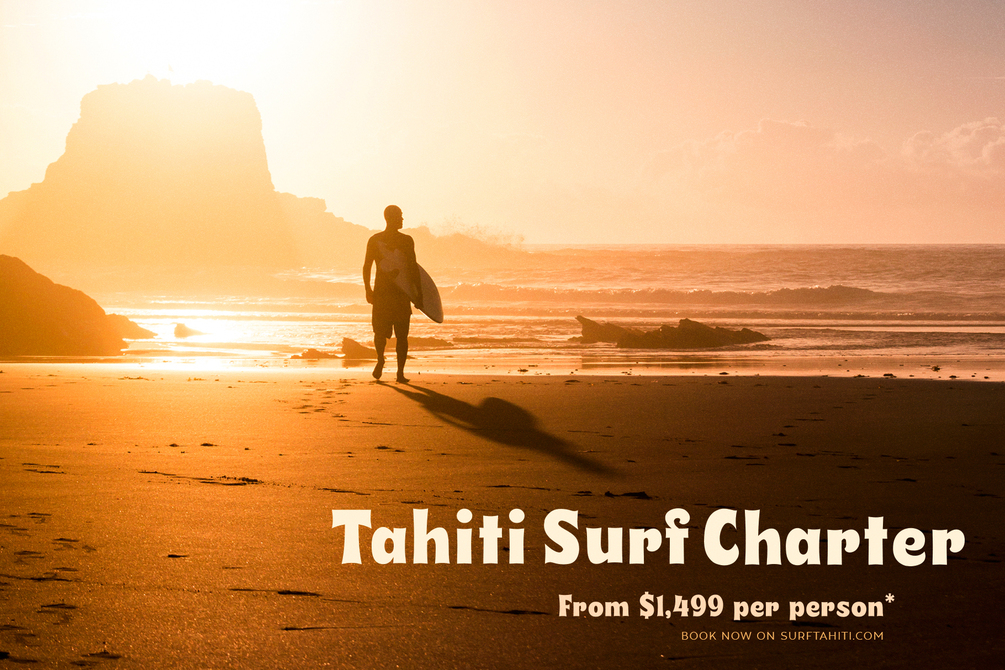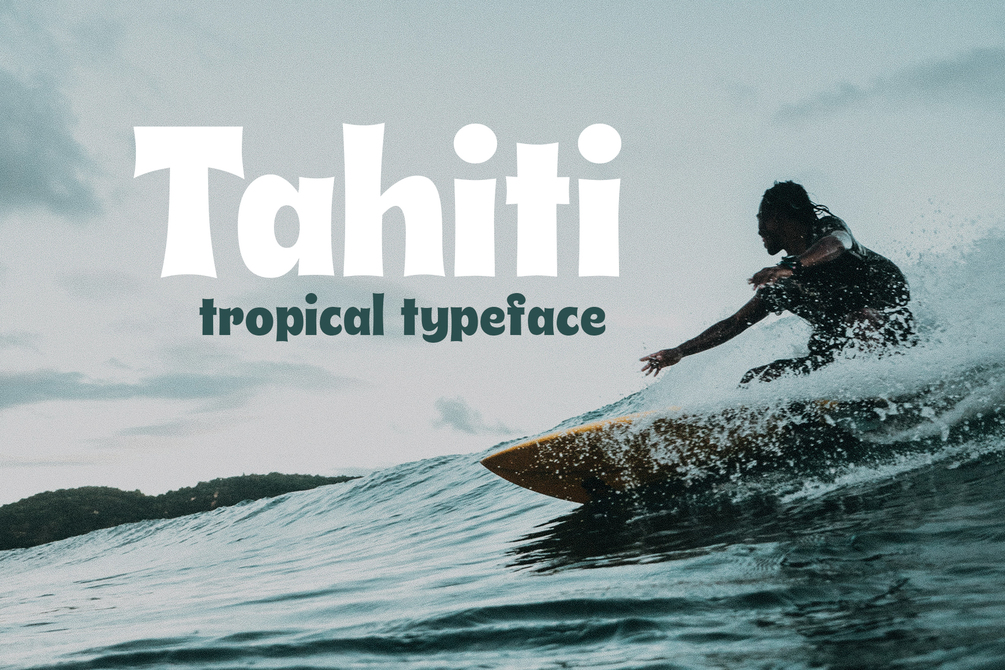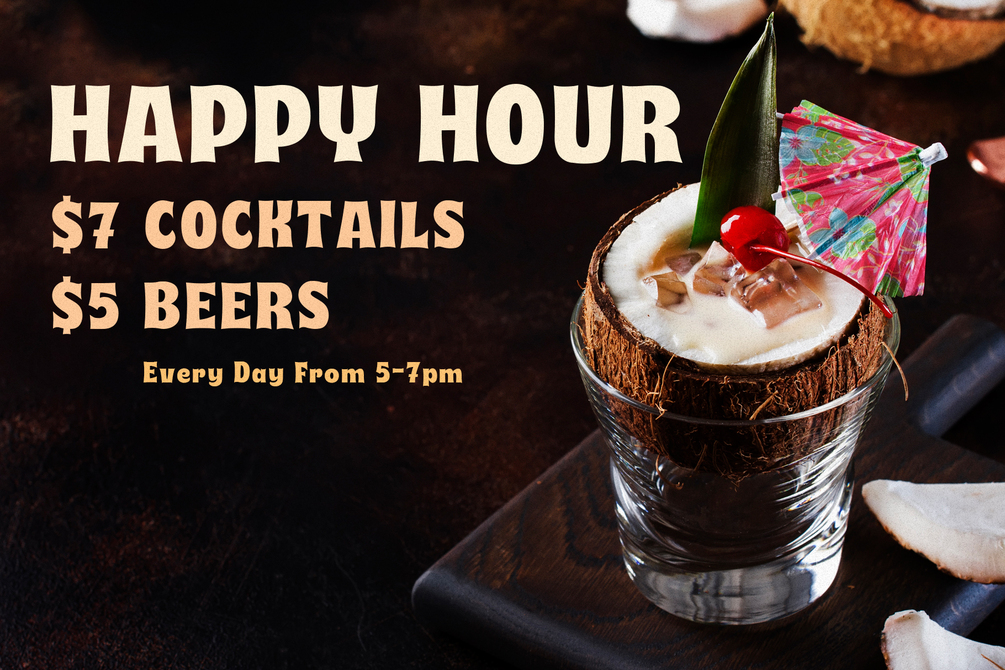
Tahiti - Tropical Font
Tahiti is a fun display typeface perfect for your Summer and Spring projects. If you're looking to add some tropical vibes to your work then this font is for you! This typeface is great for logos, tittle, headline, tagline, t-shirt, merchandise, social media, labels, handwritten quotes, product packaging, poster, branding, greeting cards, etc.